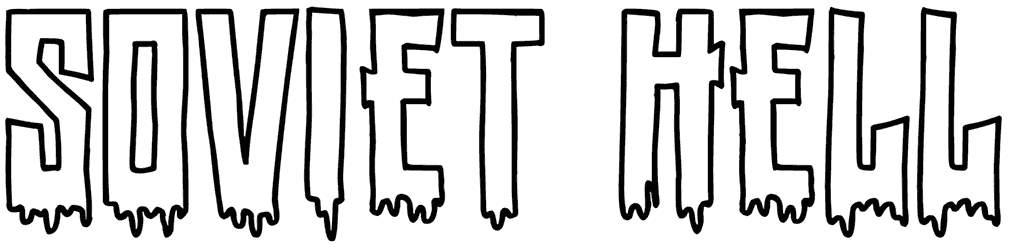
Soviet Hell Font
Soviet Hell is an incredible font that catches your attention in the first second. This horror font has an attractive design and seems memorable to the viewers.
You may use the Soviet Hell font in several situations, such as posters, movie titles, and video games, while the lowercase letters are not included. This dripping font has an icy style and gives your audience a new experience. Moreover, its letters have sharp edges and sturdy forms, creating a frightening feeling.